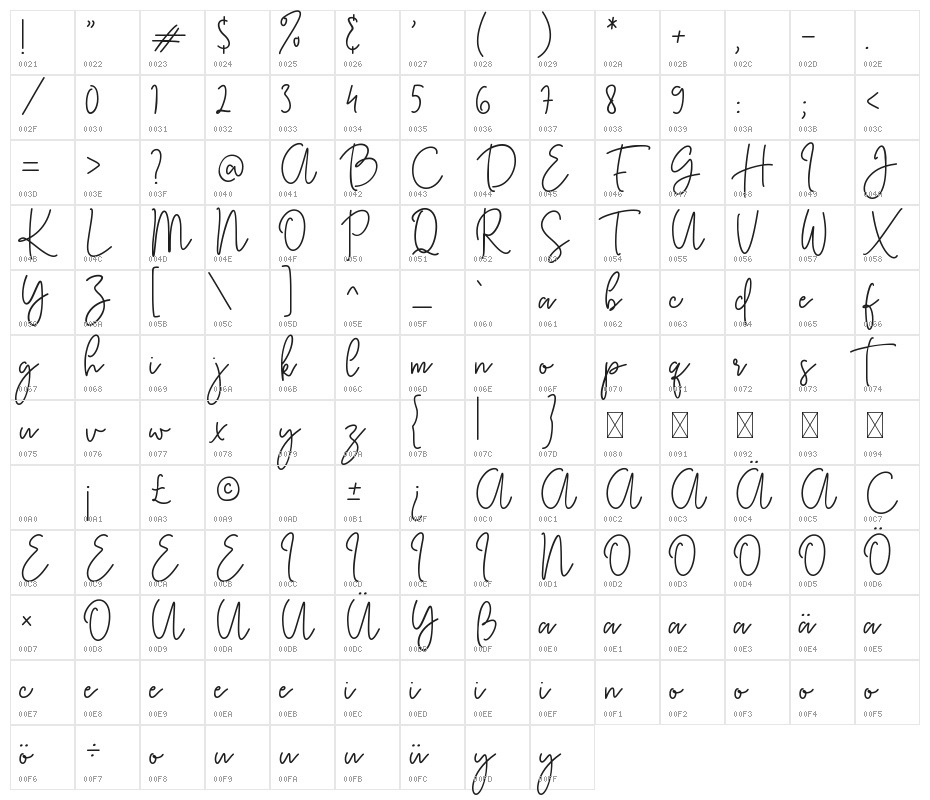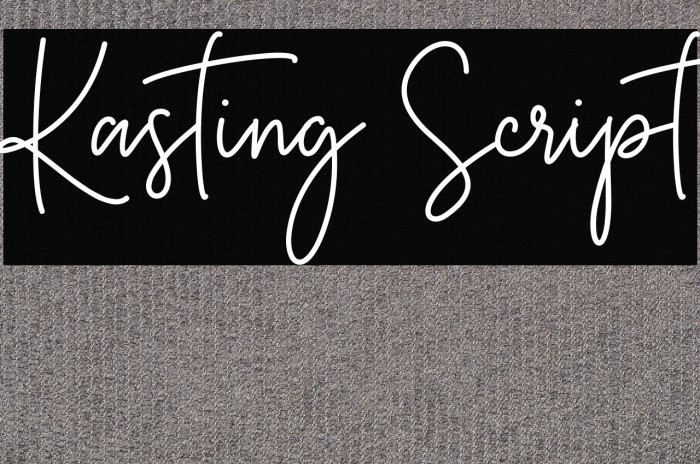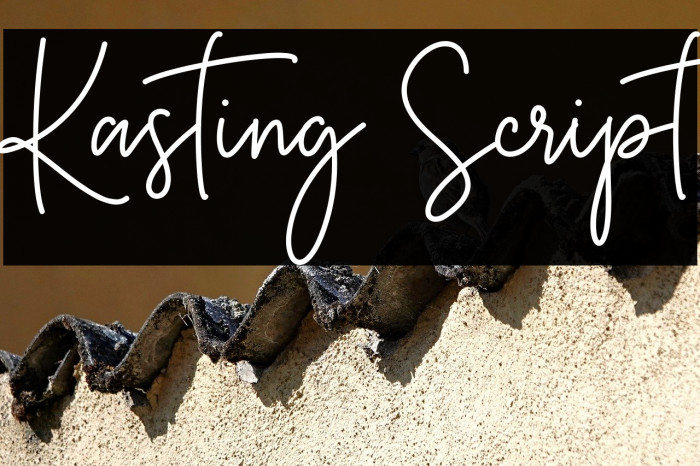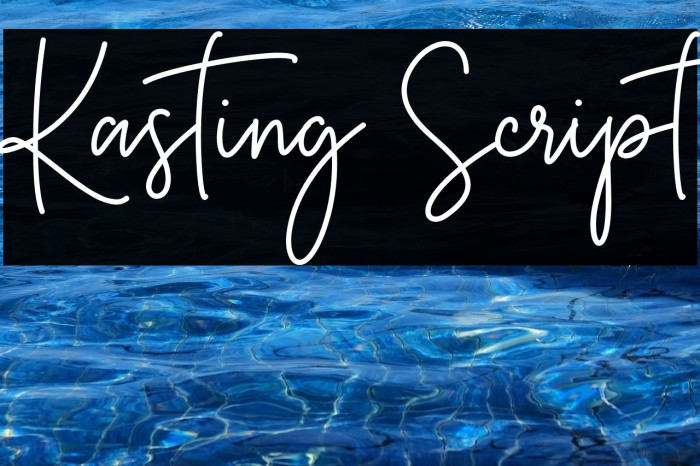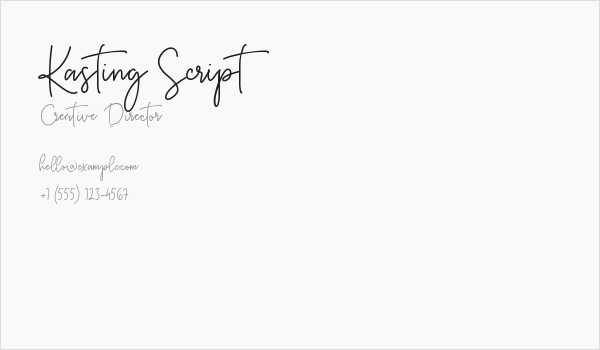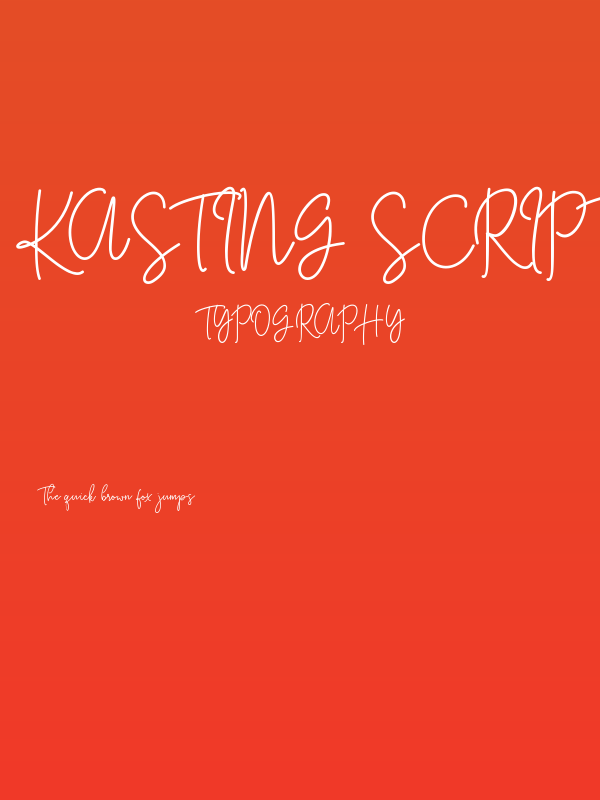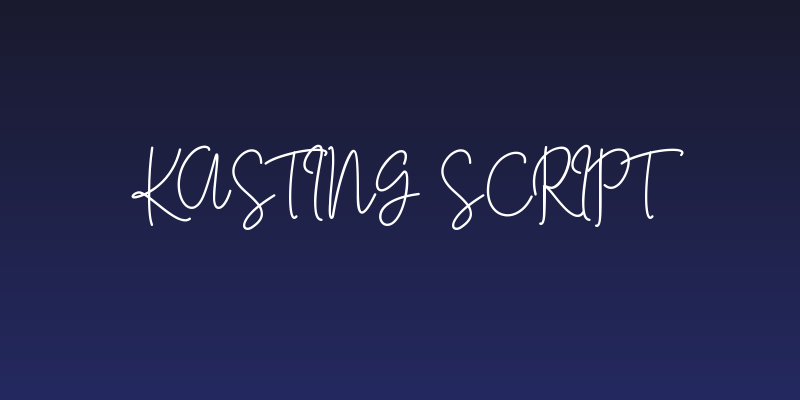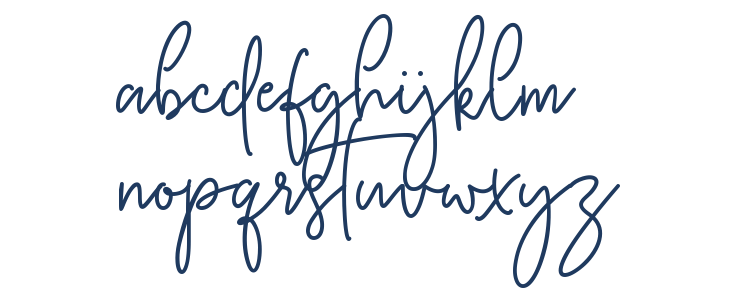
Kasting Script Font
Kasting Script Description
This font exudes a lively and dynamic character with its fluid, cursive style. The letters are interconnected, creating a seamless flow that mimics natural handwriting. The uppercase letters maintain a consistent height, while the lowercase letters vary in size, adding to the organic feel. The strokes are smooth and slightly varied in thickness, giving a sense of movement and energy. The numerals and special characters are designed to complement the letters, maintaining the same cursive style. Overall, this font is both elegant and playful, making it suitable for a variety of creative projects.
| Use Case | Logos, Invitations, Greeting Cards |
| Proposed Projects | Ideal for wedding invitations, greeting cards, personal branding, and creative projects that require a handwritten touch. |